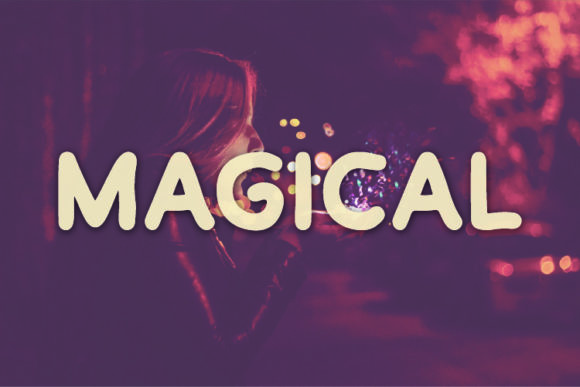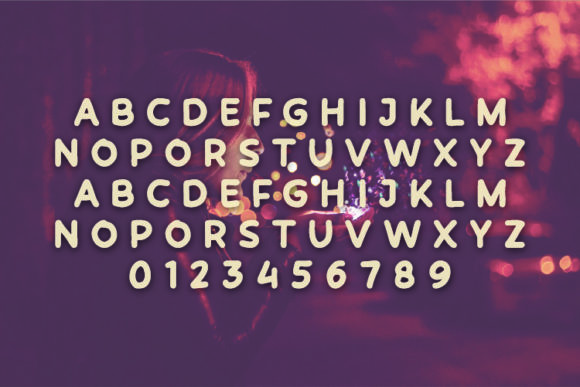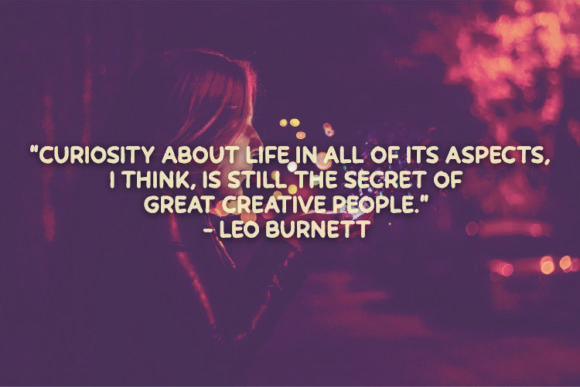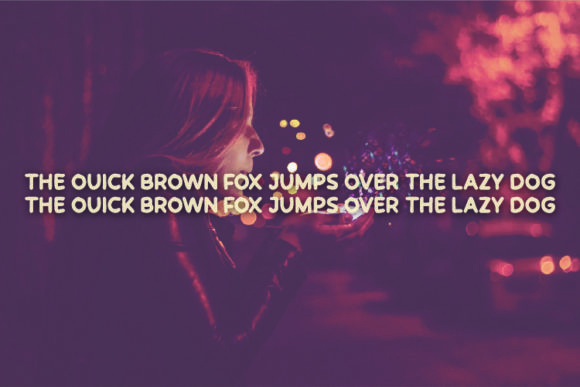
Magical Font
About Magical Font
Magical is a clean, friendly and natural handwritten font. Whether you’re using it for crafts, digital design, presentations, or making greeting cards, this font has the potential to become your favorite go-to font, no matter the occasion!